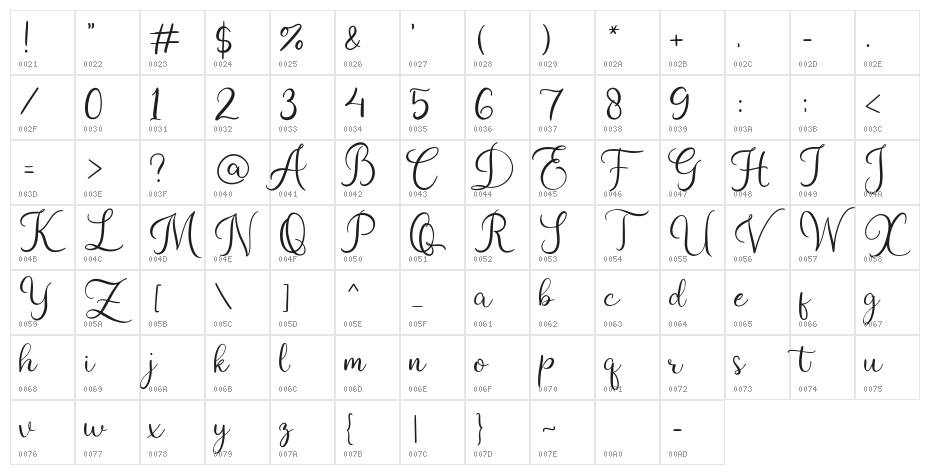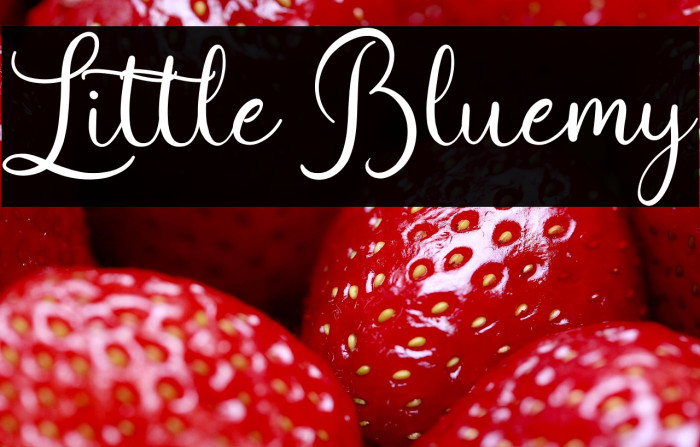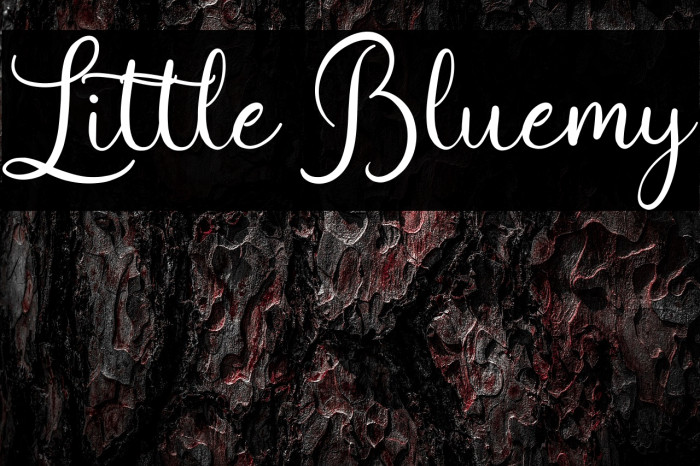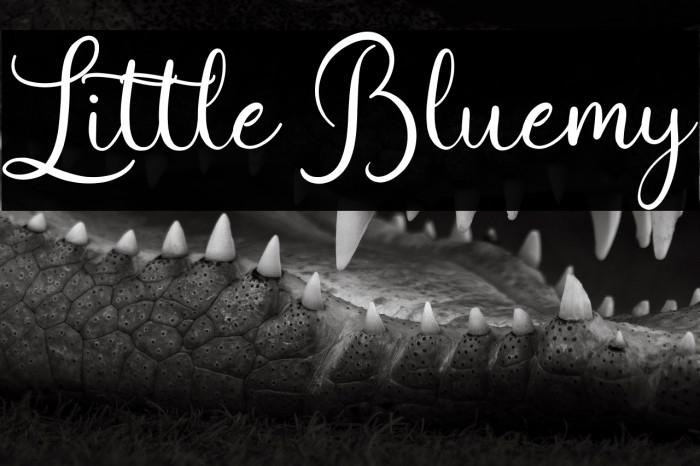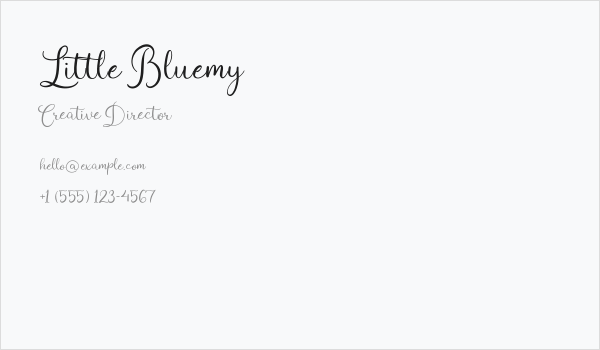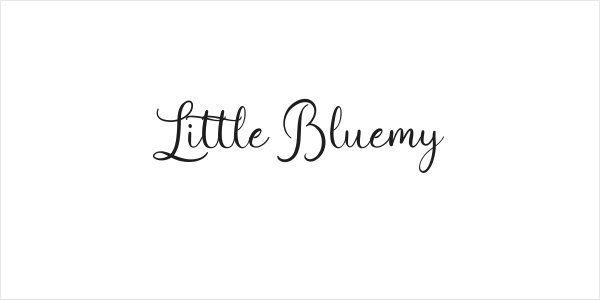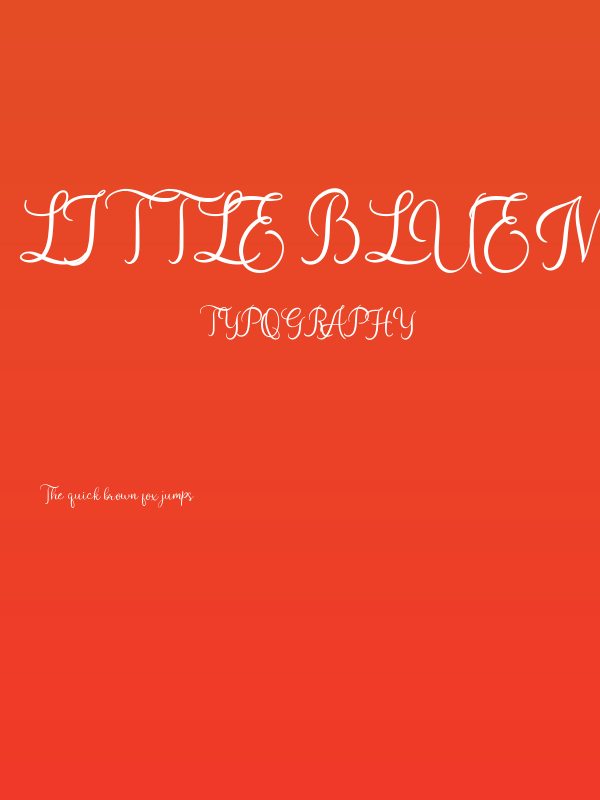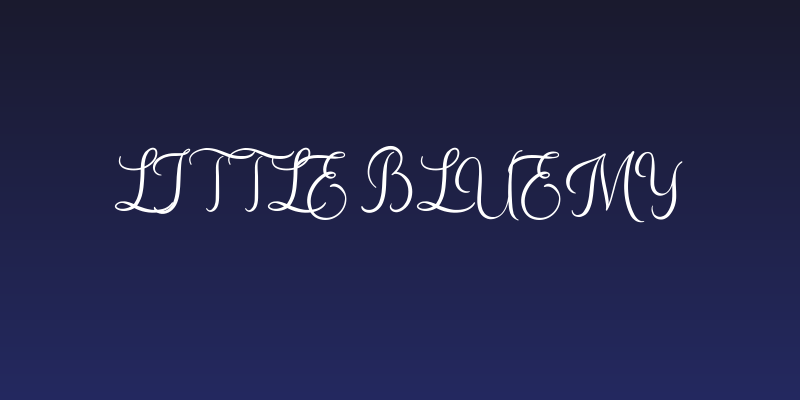
Little Bluemy Font
Little Bluemy Description
This elegant script font features a flowing, cursive style with smooth, connected strokes that give it a graceful and sophisticated appearance. The uppercase letters are characterized by their sweeping curves and loops, while the lowercase letters maintain a consistent fluidity, making it ideal for creating a harmonious and visually appealing text. The numerals are bold and slightly more structured, providing a nice contrast to the letters. Special characters are thoughtfully designed to match the overall aesthetic, ensuring a cohesive look across all elements. This font exudes a sense of charm and elegance, making it suitable for a variety of creative projects.